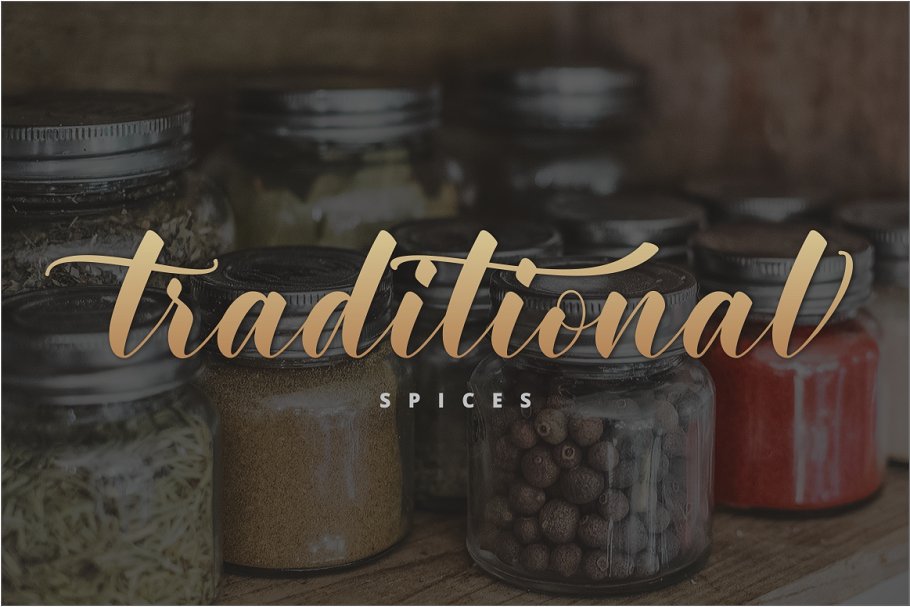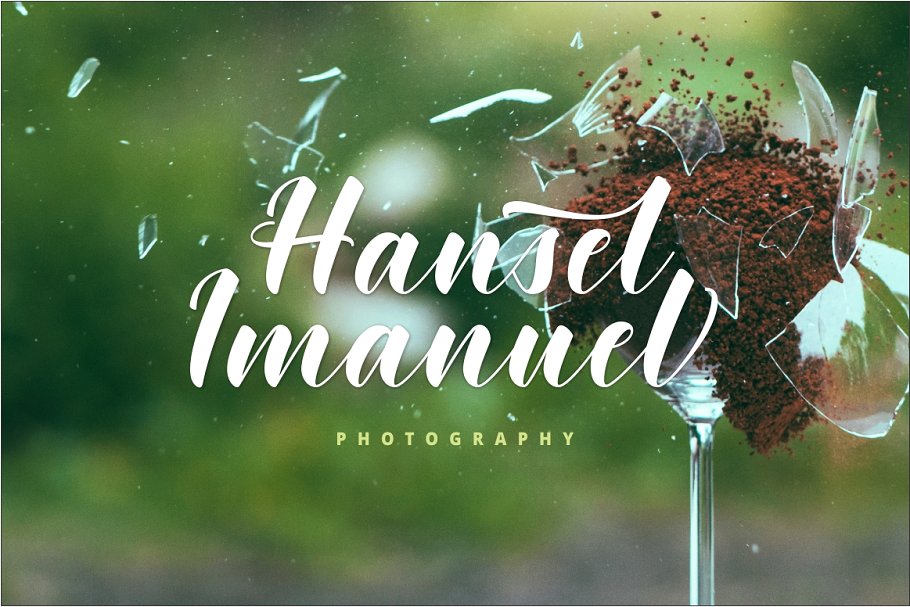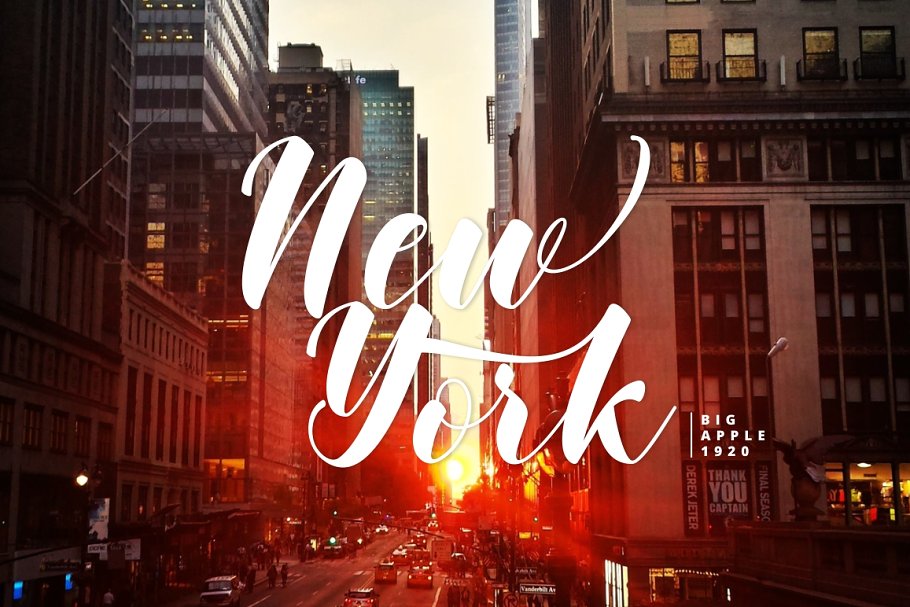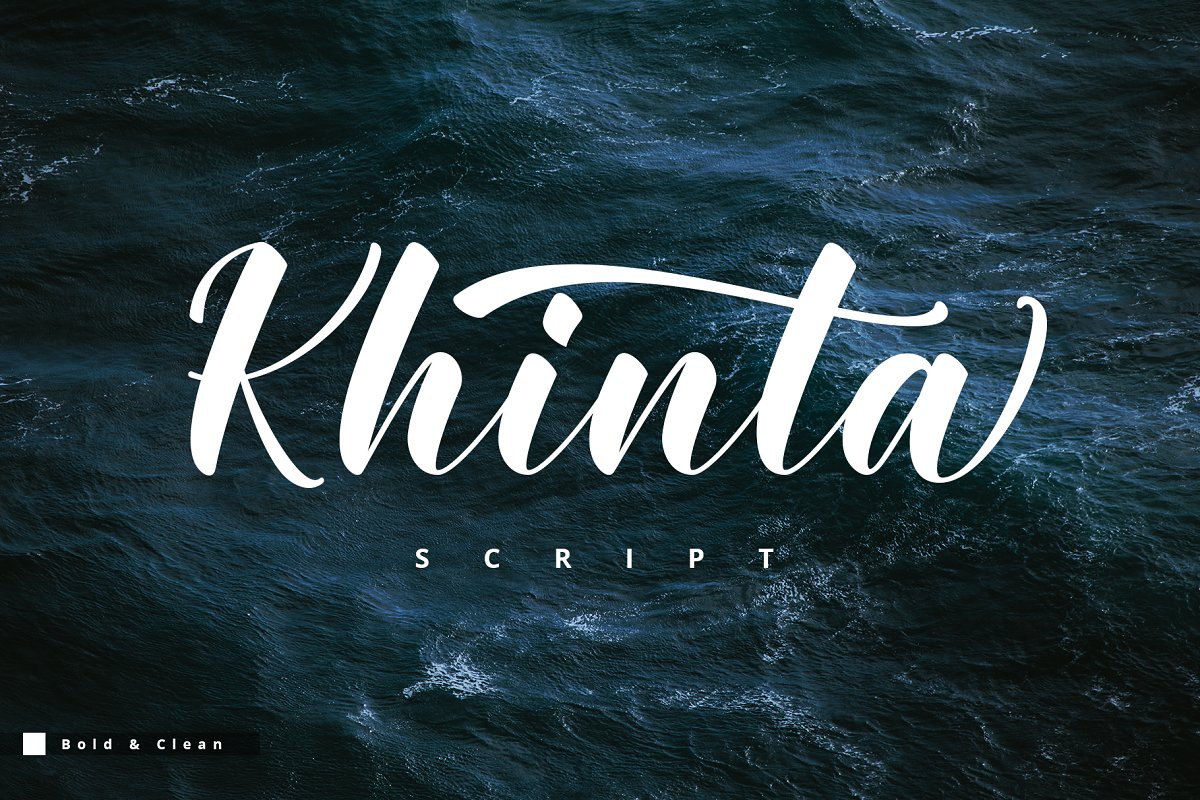
Khinta Script Font
Introduce Khinta Script!
This is a new font script. Khinta comes with a bold and clean style, in this font you will find a style that is firm, luxurious and simple. Available 400 glyphs in it! So you can use it freely as you wish and your design work needs!